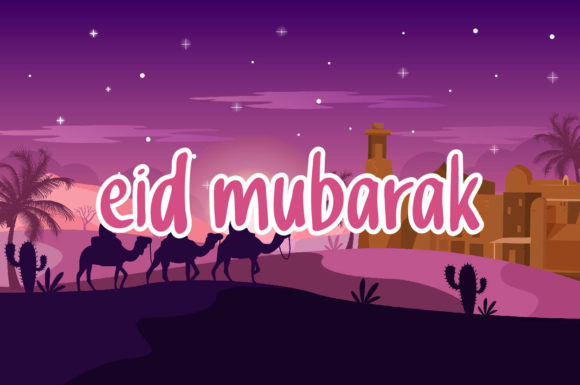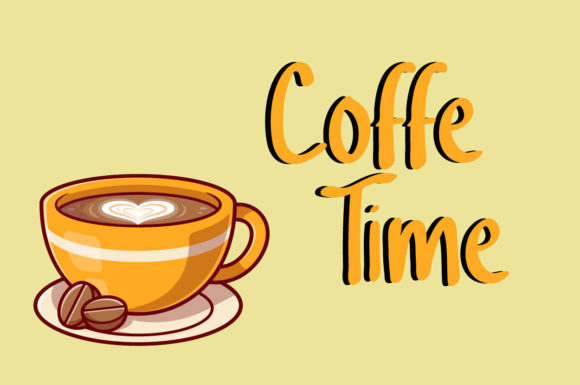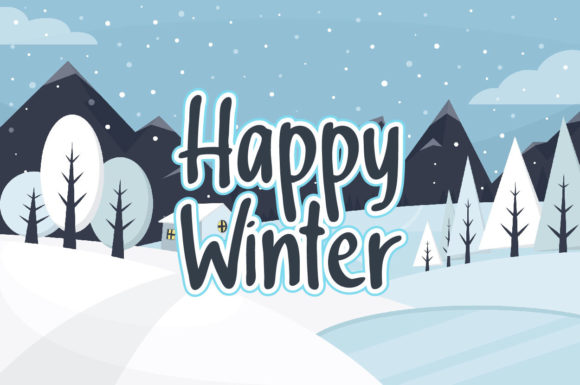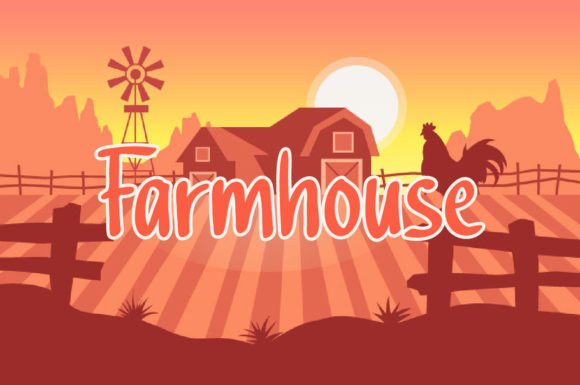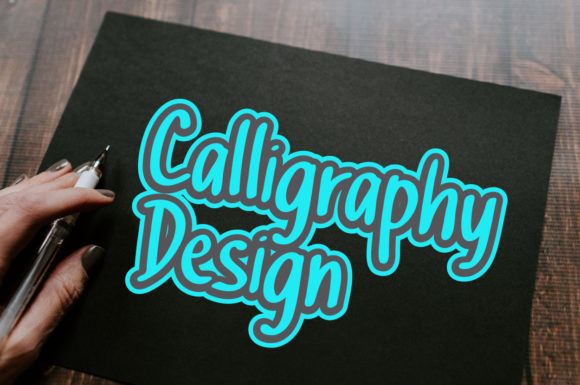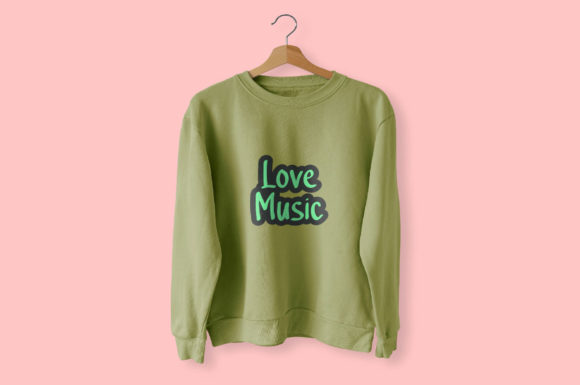
Introduction to Play Music Font
Play Music is a whimsical script font with a relaxed theme, featuring a lovely style.
No matter the topic, this font will be an incredibly asset to your fontsโ library, as it has the potential to elevate any creation .
Key Features of Play Music Font